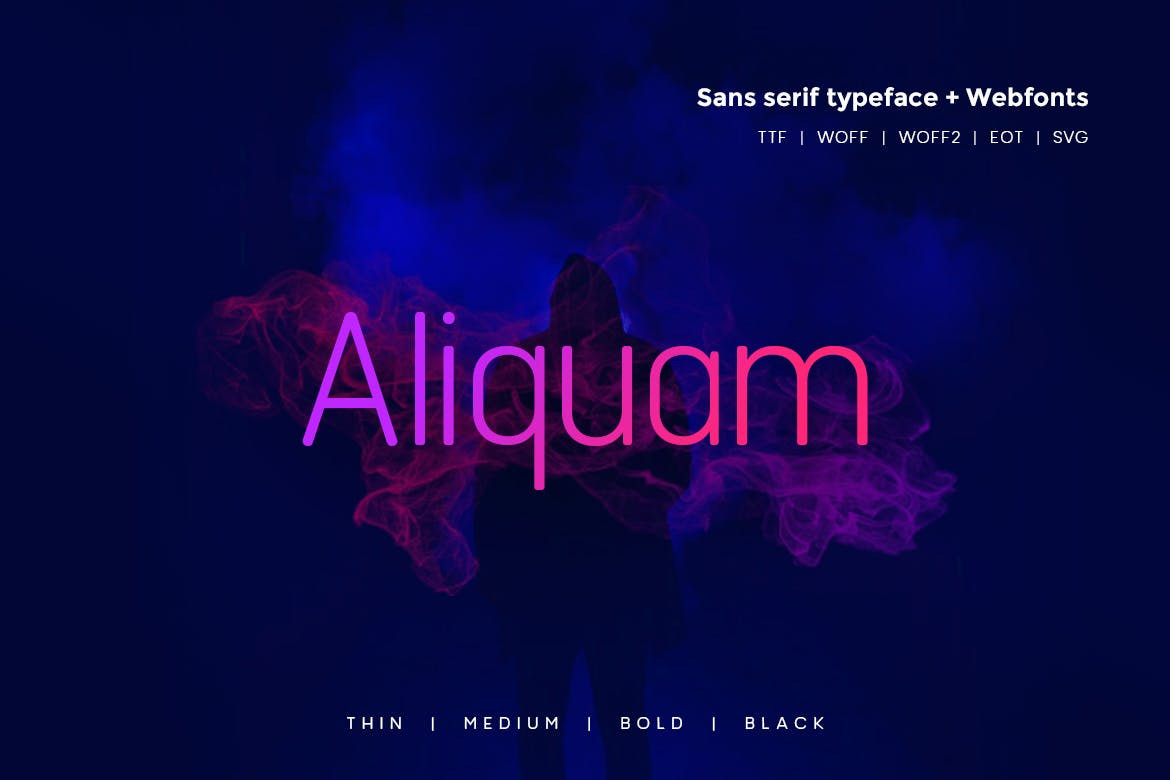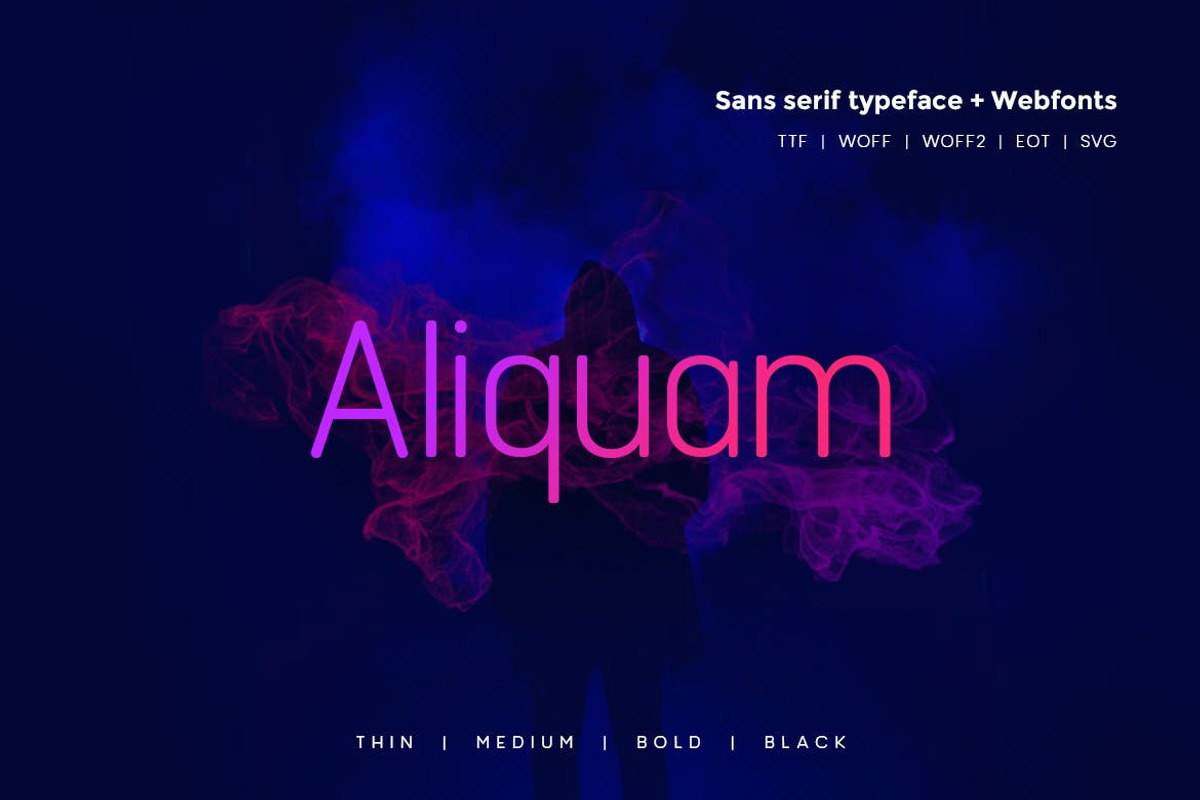
Aliquam - Modern Typeface + WebFonts
Aliquam Sans Typeface
Another modern fantastic sanserif typeface from Unbranded, which delivers remarkable unique typography with 4 font weights. The pack includes OTF, TTF, and Web Fonts (all EOT, SVG, TTF, WOFF included).
Font Designed and Crafted by Maya G, Distributed by Webhance Studio.